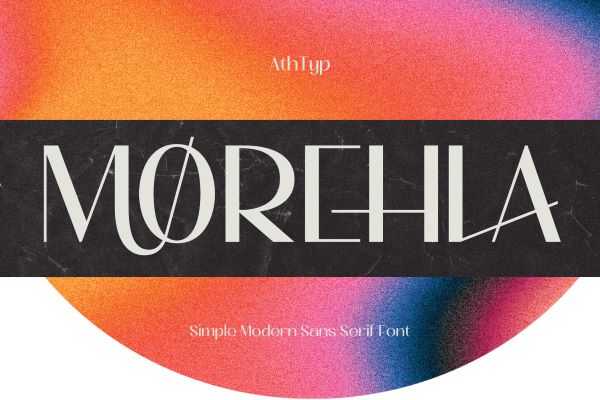
Morehla Font
Morehla by Authen Type is a free simple modern sans-serif font with a sleek, composed elegance and subtle decorative details that lift it above the purely functional without tipping into ornament. Each letterform is meticulously handcrafted to achieve a sense of timeless grace — the kind of refined presence that works equally well anchoring a wedding invitation, a minimal brand identity, an editorial layout, or a product label. Its versatility is genuine: Morehla adapts to the tone around it without losing its own quiet distinction. Available free for personal use, with the full version available via Authen Type’s website.